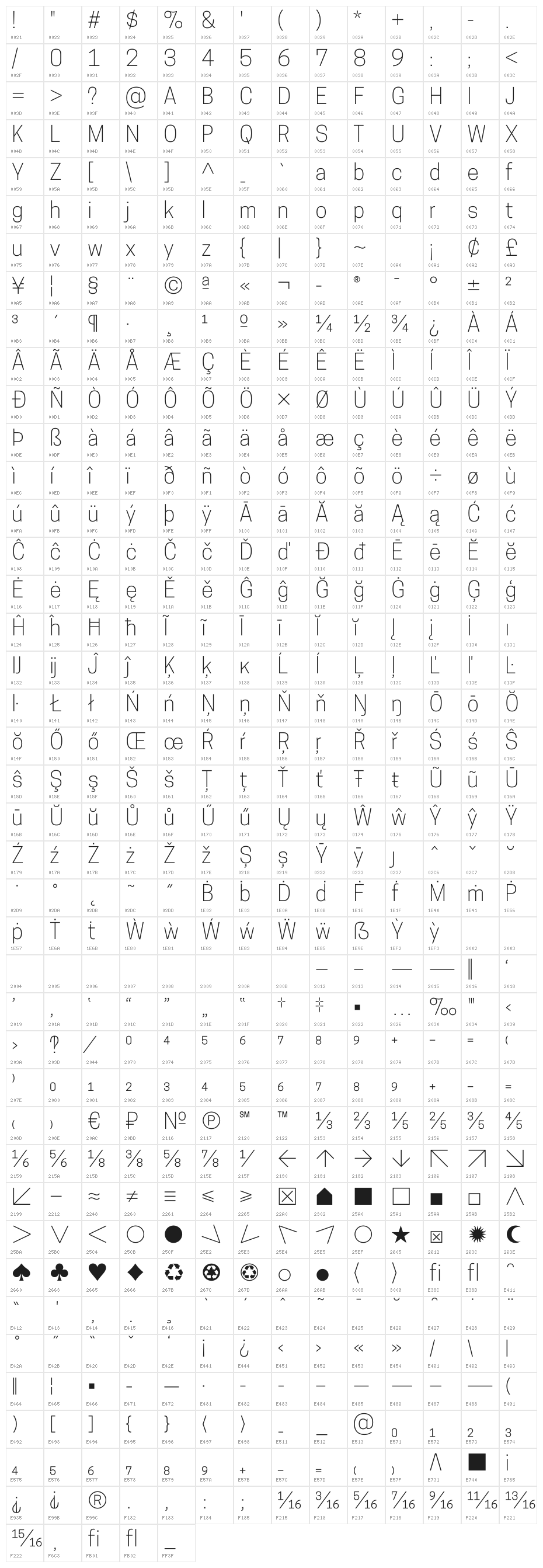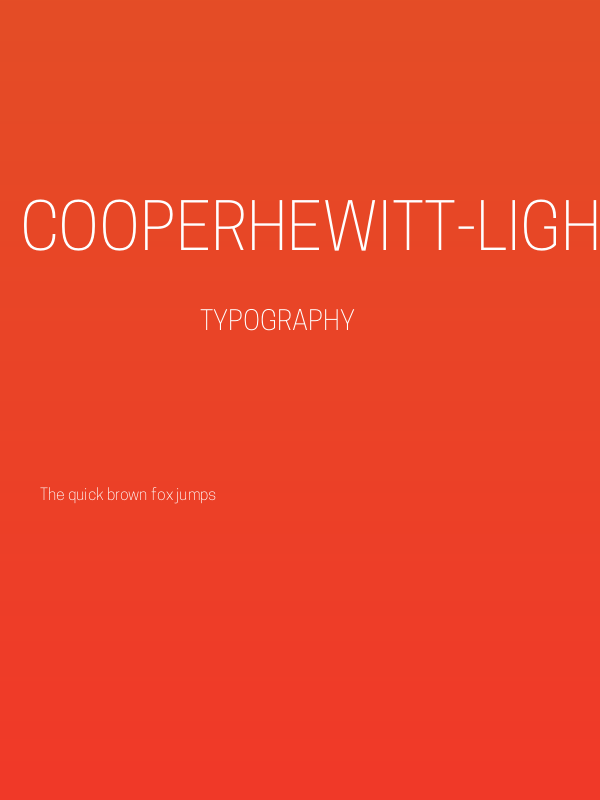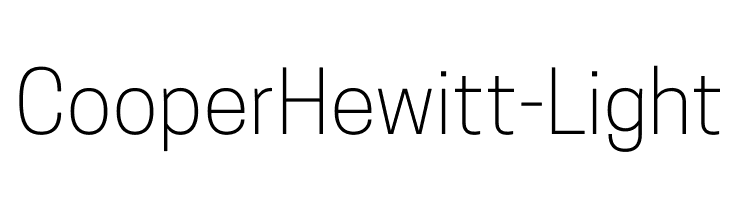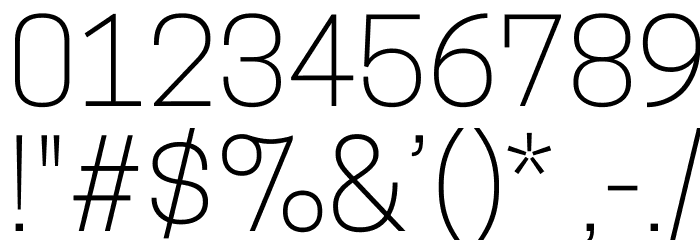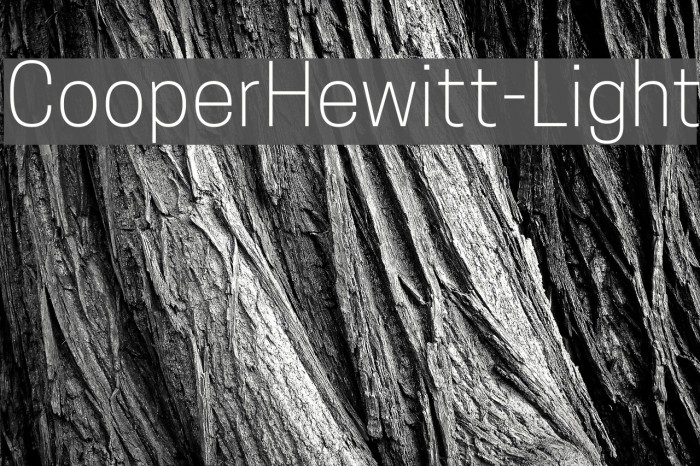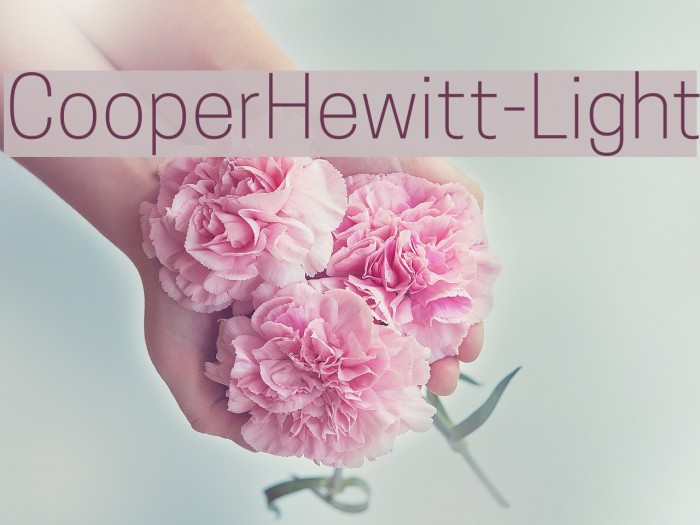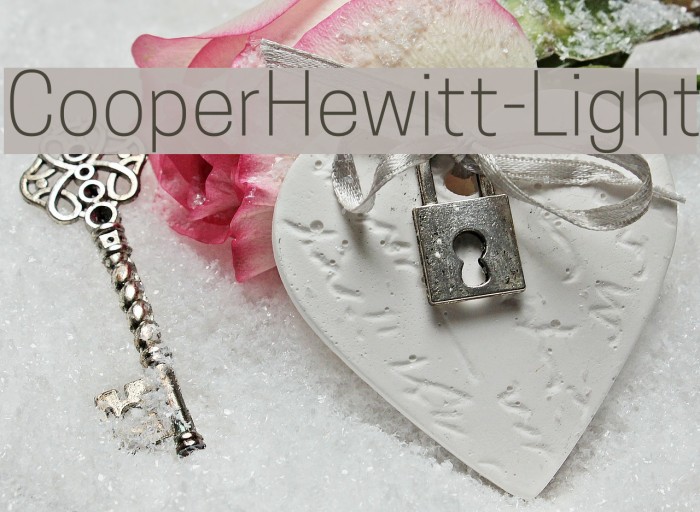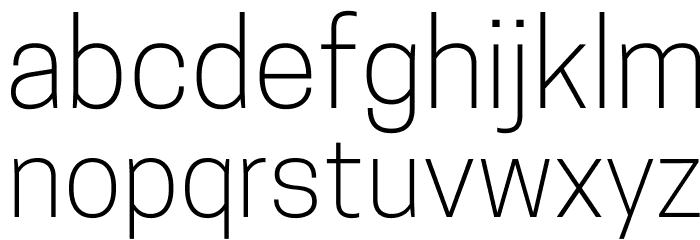
CooperHewitt-Light Font
✎ Sans Serif
CooperHewitt-Light Description
This typeface exhibits a clean and modern aesthetic with a geometric sans-serif style. The characters are uniform and well-proportioned, offering a sleek and contemporary look. The strokes are consistent in width, providing a harmonious and balanced appearance. The font's simplicity and clarity make it highly legible, even at smaller sizes. It features a full set of uppercase and lowercase letters, numerals, and a variety of punctuation marks and special characters. The overall design is minimalistic, making it versatile for various design applications.
| Use Case | Headlines, Body text, Logos |
| Proposed Projects | Ideal for branding, web design, editorial layouts, and corporate materials due to its clarity and modern appeal. |